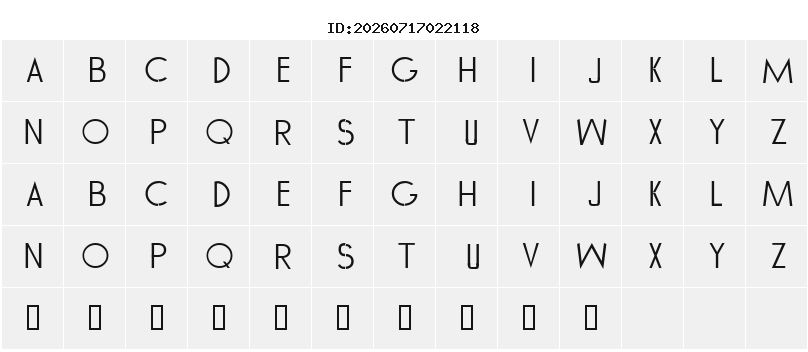
AF TOMMY HILFIGER Preview
• Font Name: AF TOMMY HILFIGER
• Full Font Name: AF TOMMY HILFIGER
About AF TOMMY HILFIGER.ttf
AF TOMMY HILFIGER.ttf is a modern, elegant sans-serif font designed for ultimate readability and visual harmony. Perfect for branding, headlines, web design, and print materials.